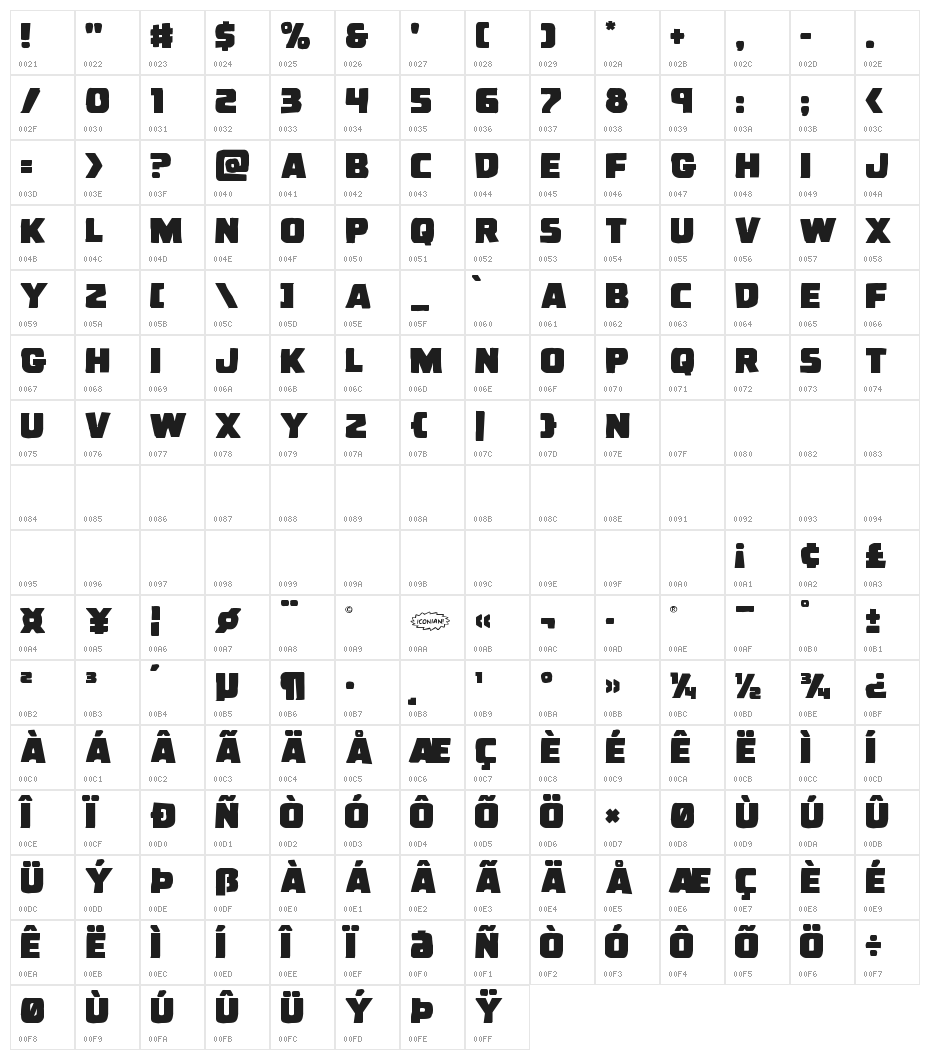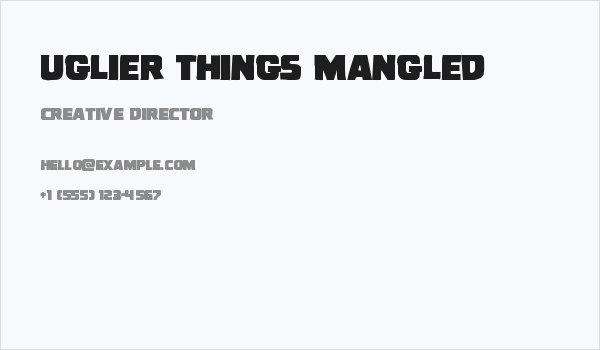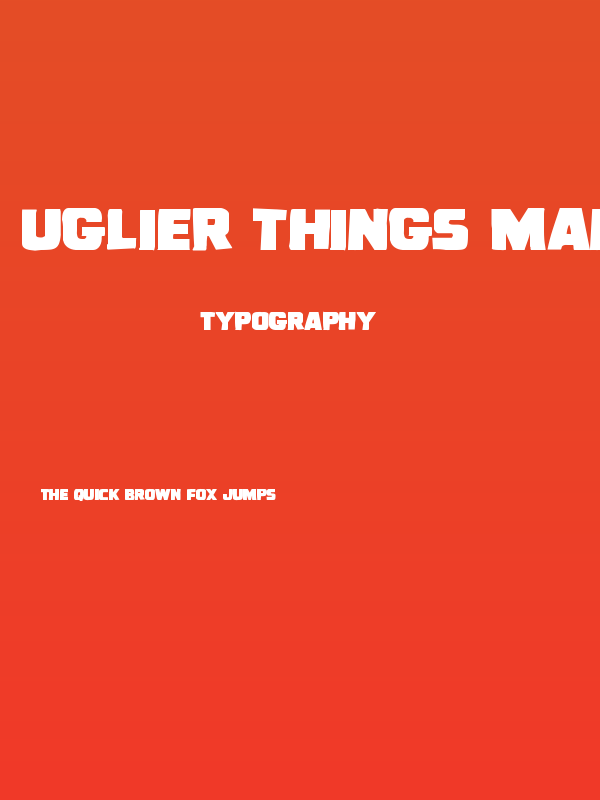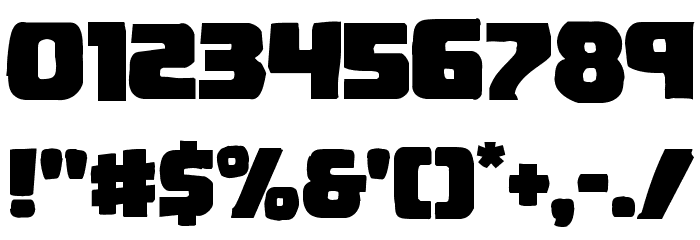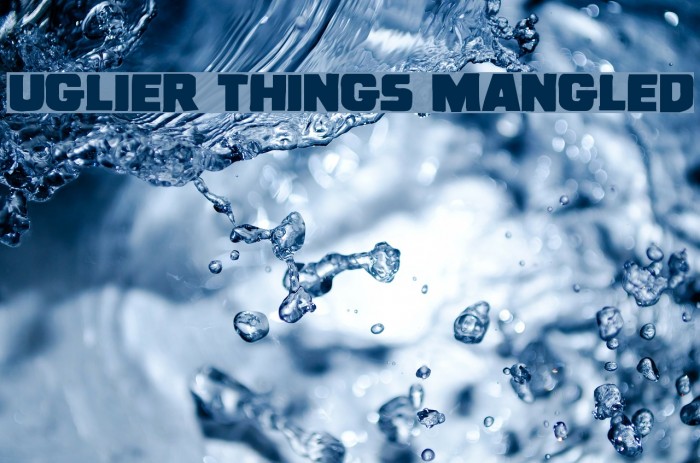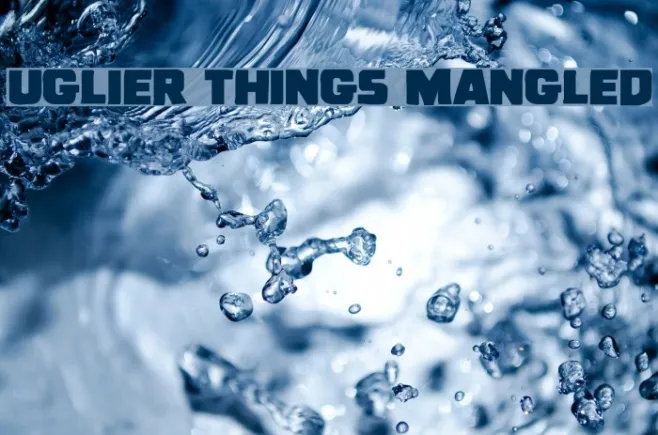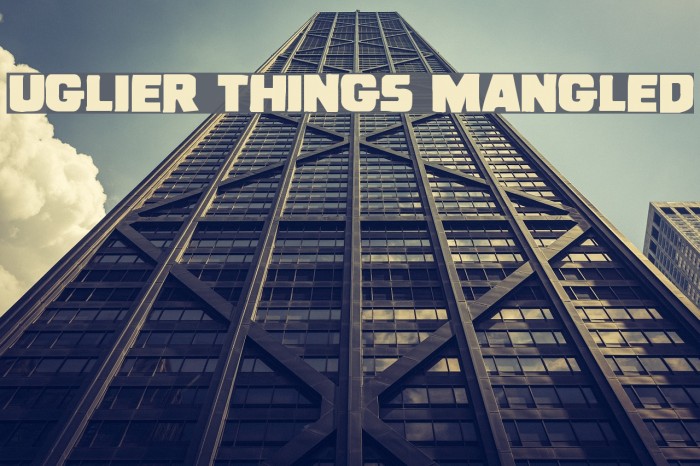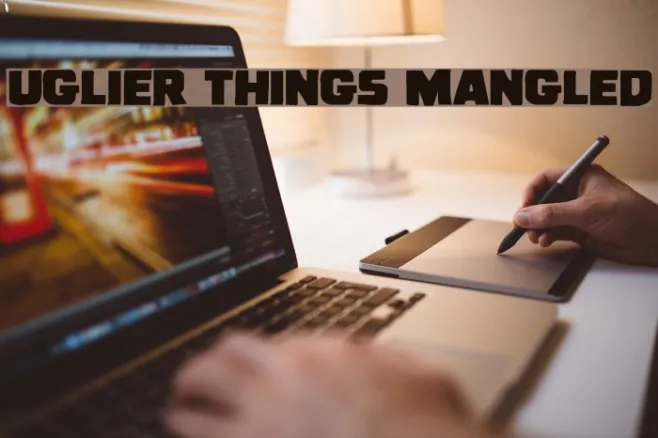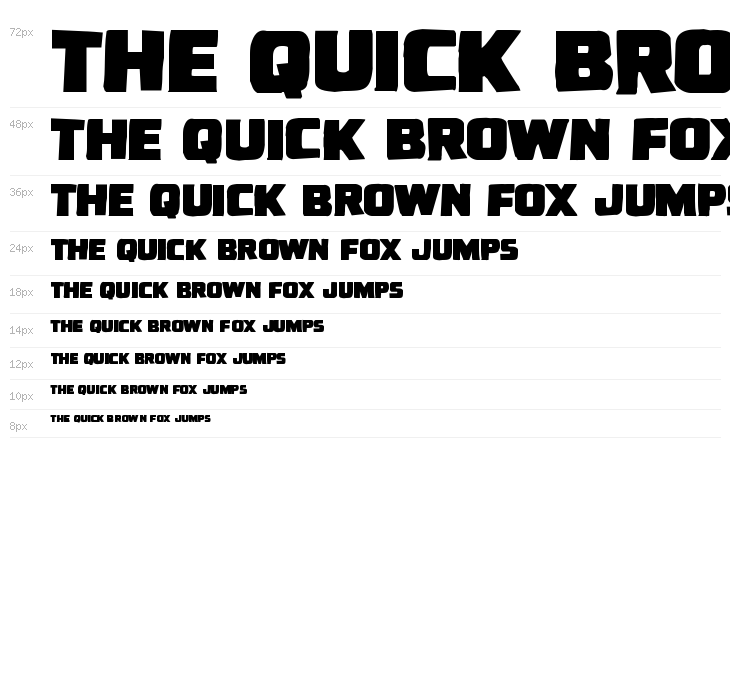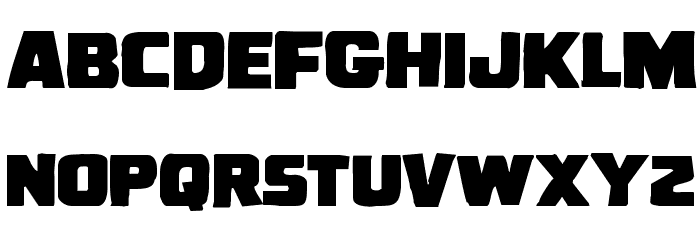
Uglier Things Mangled Font
Uglier Things Mangled Description
This font features a bold and heavy design with a distinct, rugged appearance. The characters are blocky and have a slightly irregular shape, giving them a unique, hand-crafted feel. The uppercase and lowercase letters maintain a consistent weight, contributing to a cohesive look. The numbers and special characters follow the same stylistic approach, ensuring uniformity across all glyphs. The font's thick strokes and solid presence make it ideal for impactful designs that require a strong visual statement.
| Proposed Projects | Ideal for posters, headlines, branding projects, and any design requiring a bold, eye-catching typeface. |